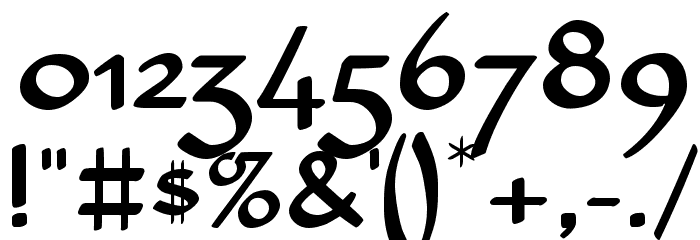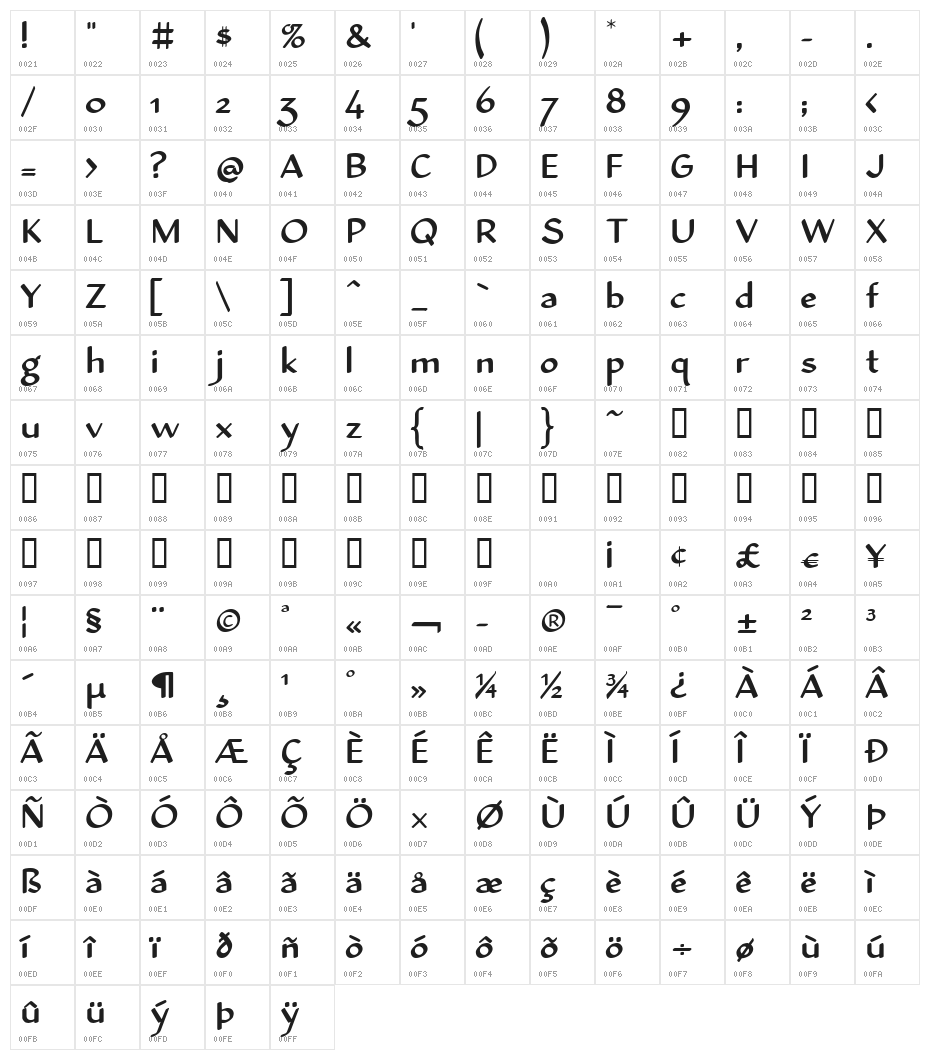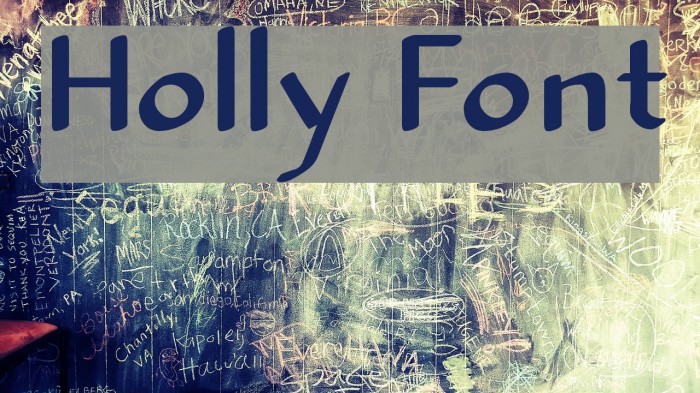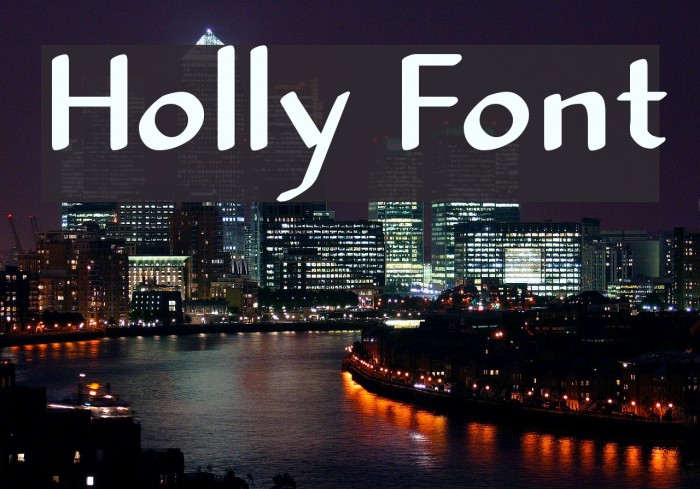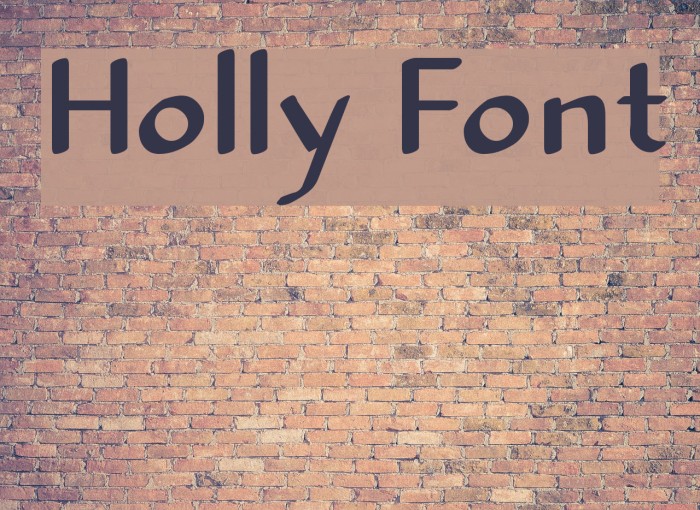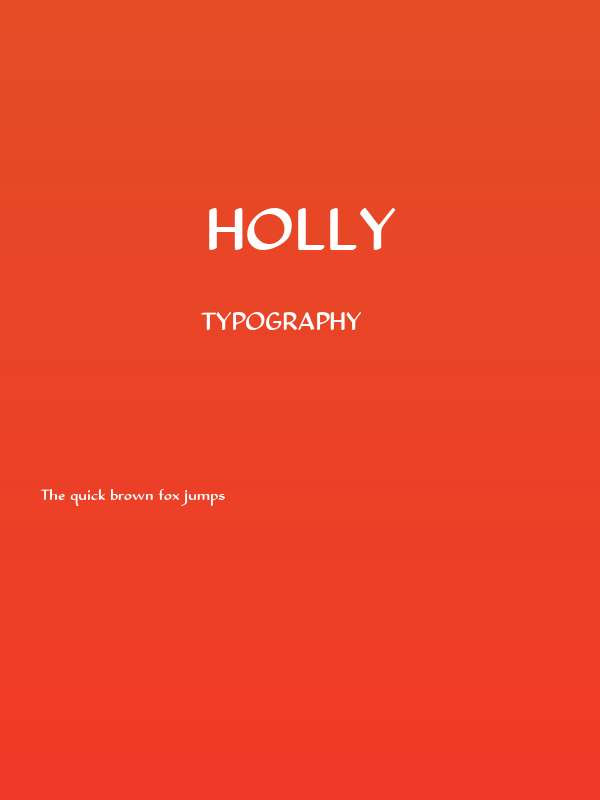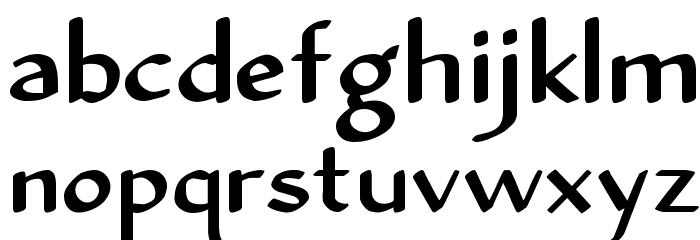
Holly Font
Holly Description
This font features a playful and rounded style with a friendly and approachable appearance. The characters have a consistent stroke width, giving it a uniform look. The uppercase letters are bold and slightly condensed, while the lowercase letters maintain a smooth and flowing form. The numerals are distinctive with a slight slant, adding to the font's dynamic feel. Special characters are well-integrated, maintaining the overall aesthetic. This font is versatile, suitable for both digital and print media, and can be used to convey a sense of warmth and creativity.
| Proposed Projects | Ideal for children's books, playful branding, casual invitations, and creative posters. |